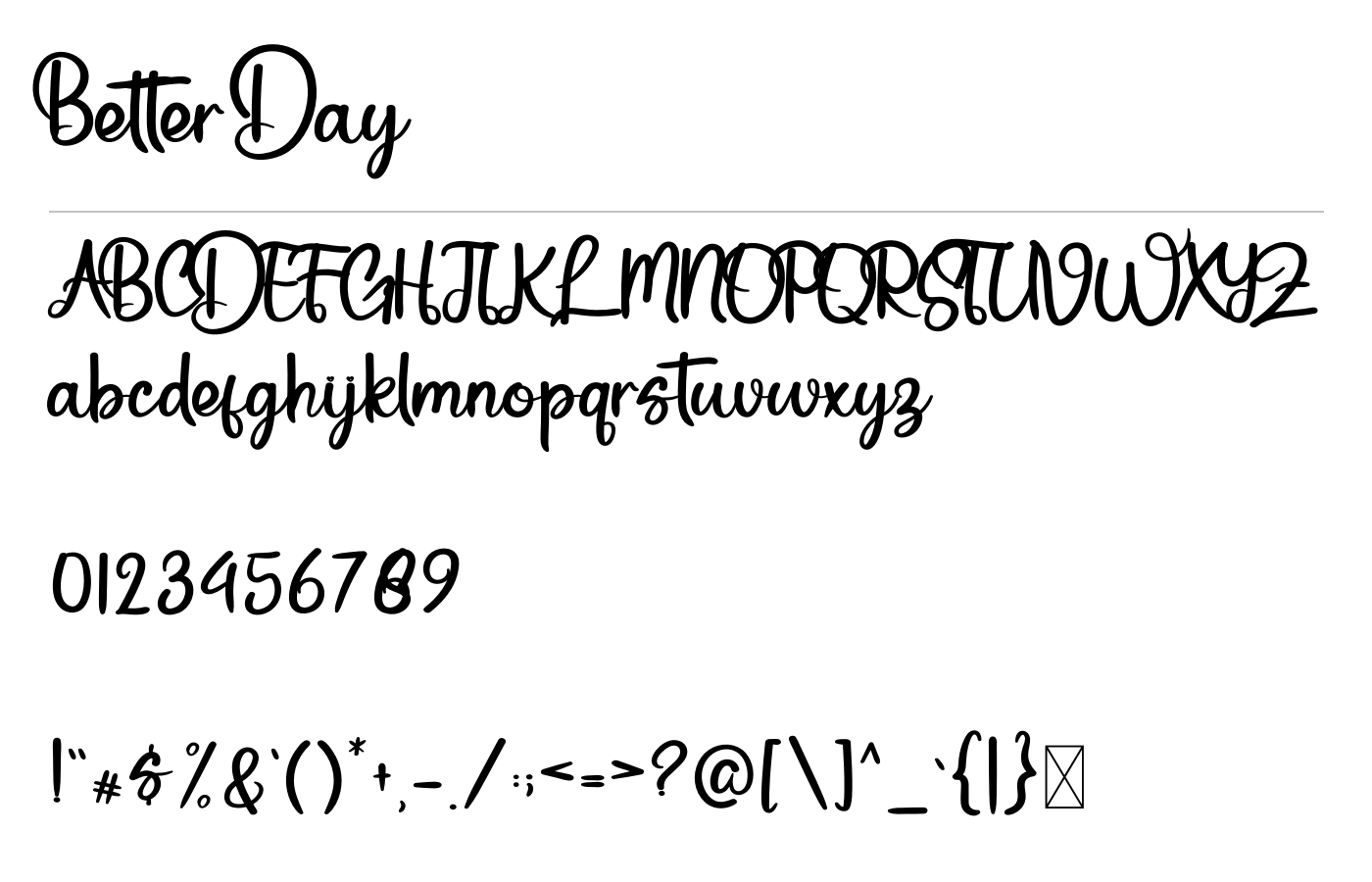
Better Day is a lively and modern script font with smooth, rounded strokes and a playful yet elegant feel. Its flowing letterforms and balanced weight make it perfect for adding a friendly and personal touch to branding, invitations, and creative projects where a warm, approachable vibe is desired. This font works especially well in headlines and logos, bringing a stylish, handcrafted charm to any design.
Better Day Font
About Better Day Font